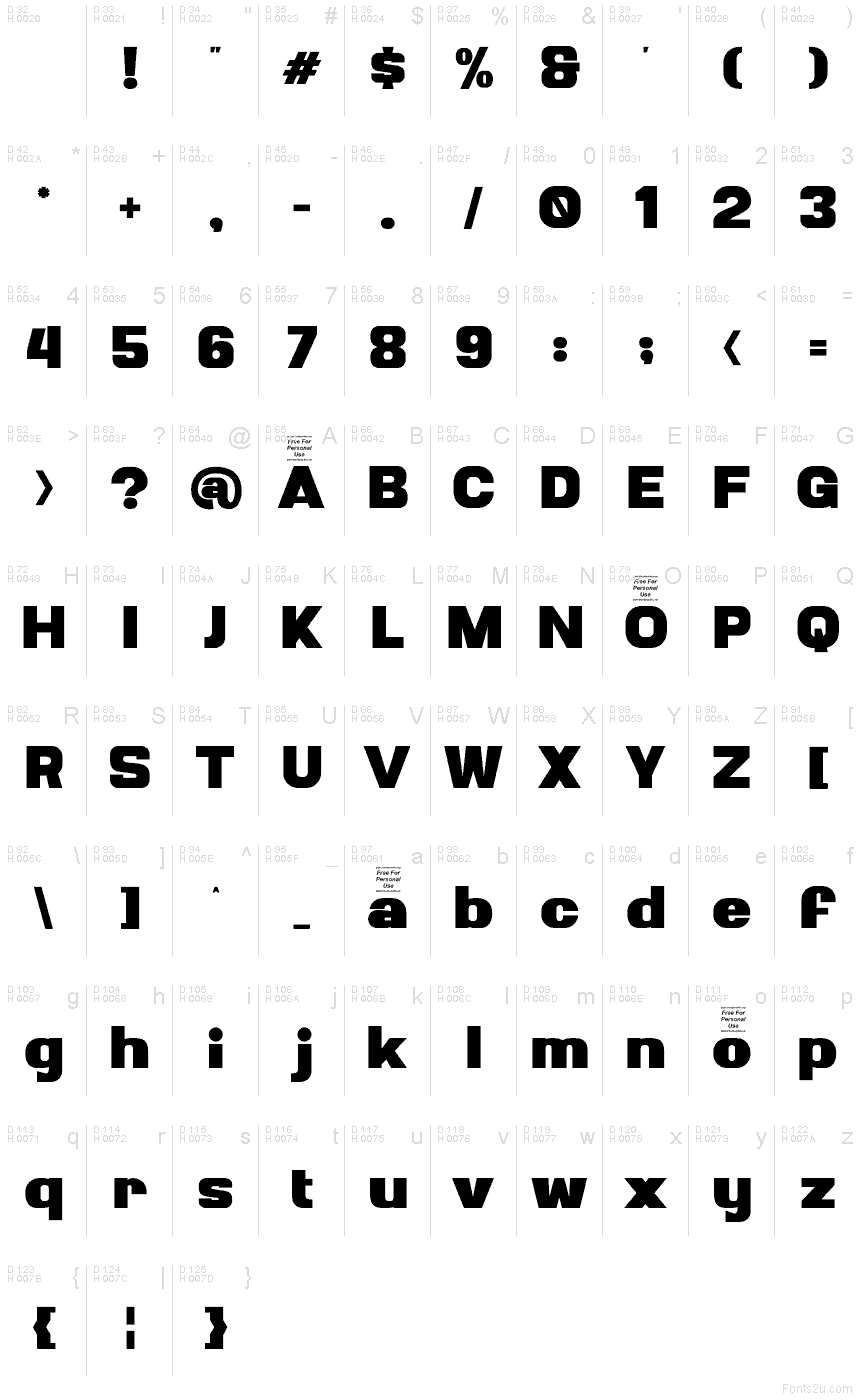
Portogue
Portogue font by Ermedia studio is a free bold geometric sans font that solves a familiar dilemma: you want knockout weight without the shouty edge. Its blocky silhouettes and broad curves pack dense color on the line, while the rounded bowls keep it approachable and modern. Tight spacing and generous shapes make headlines look solid and confident, like ink poured cleanly into a stencil.
Using Portogue, you can anchor brand wordmarks, billboard headlines, posters, social promos, packaging, event titles, and splash screens with immediate impact. This free font shines at large sizes where its chunky forms read crisp and deliberate. Pair with a light, neutral grotesk for body copy, or let Portogue handle short subheads to maintain rhythm across the layout.